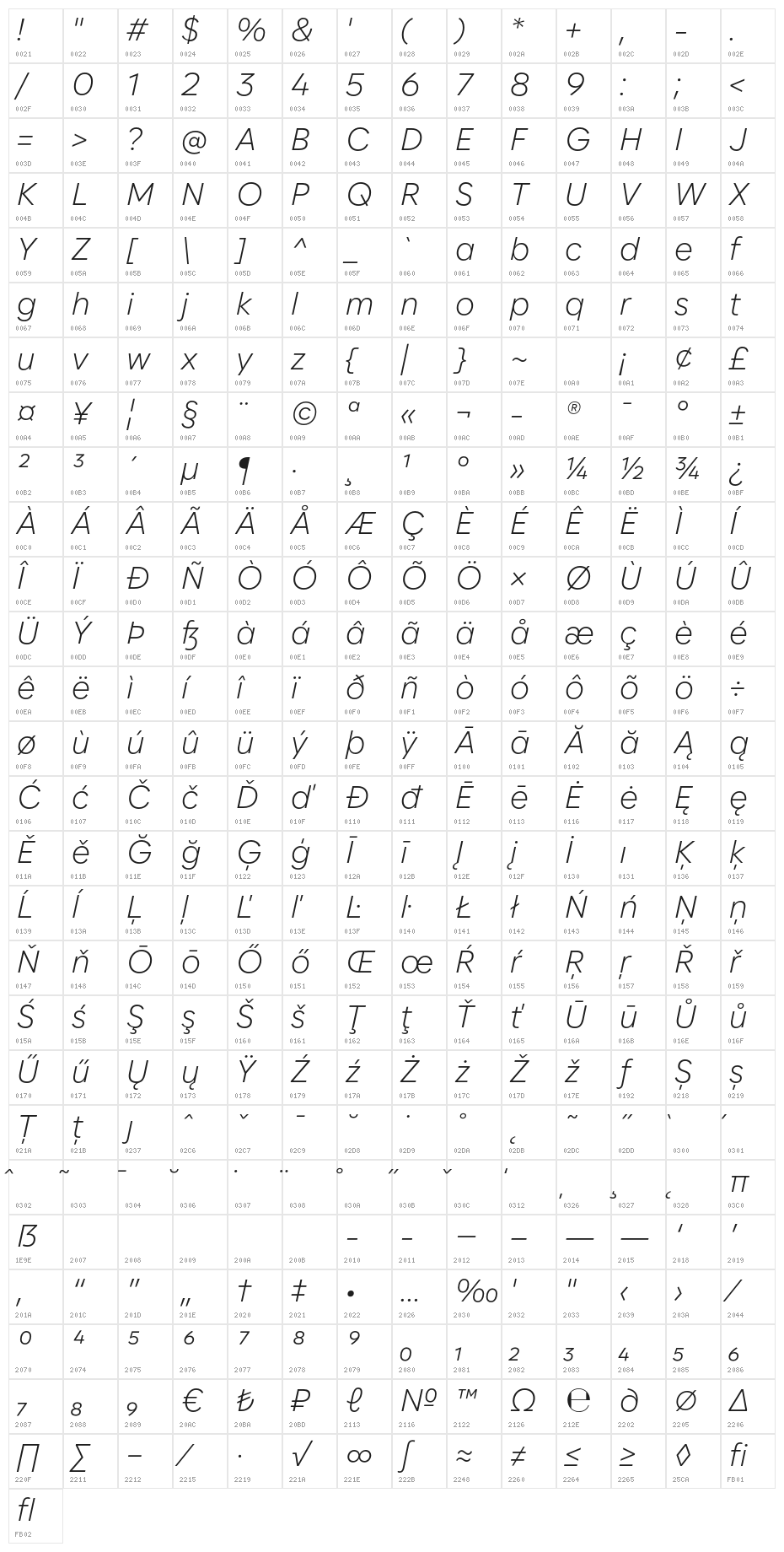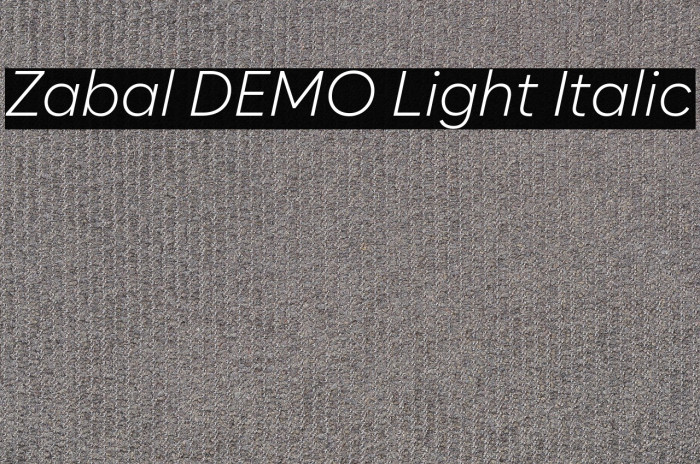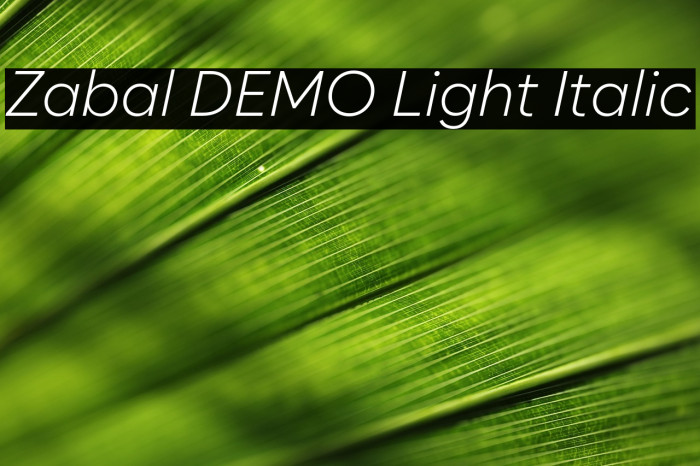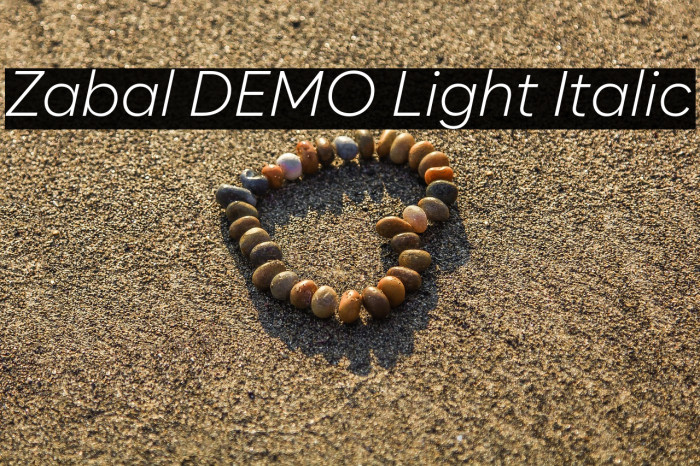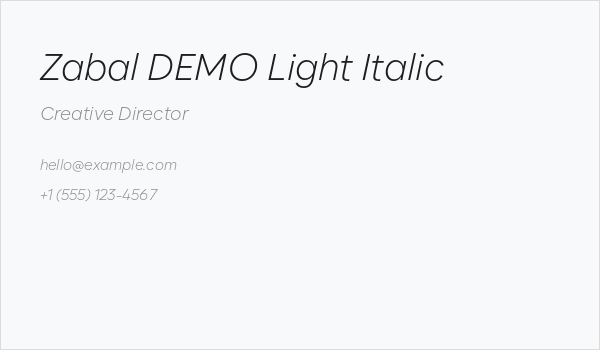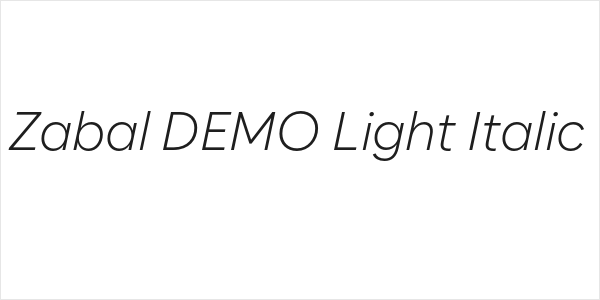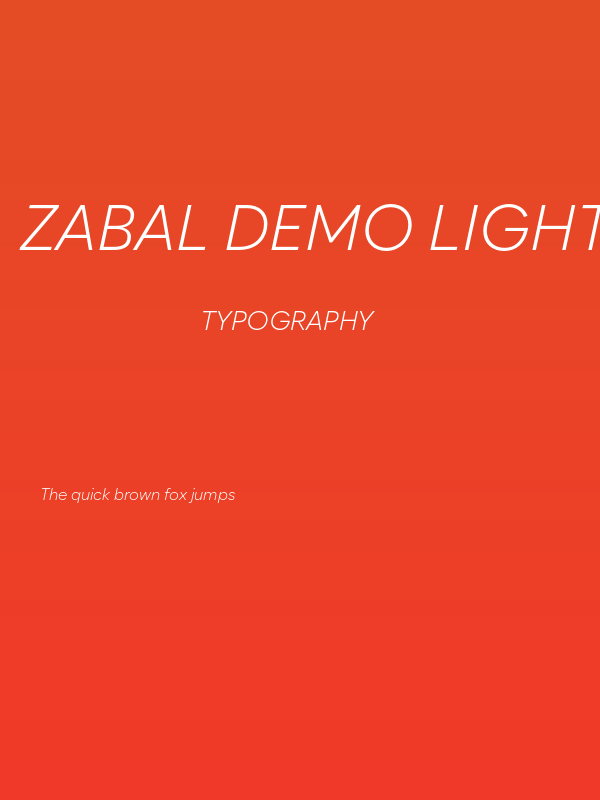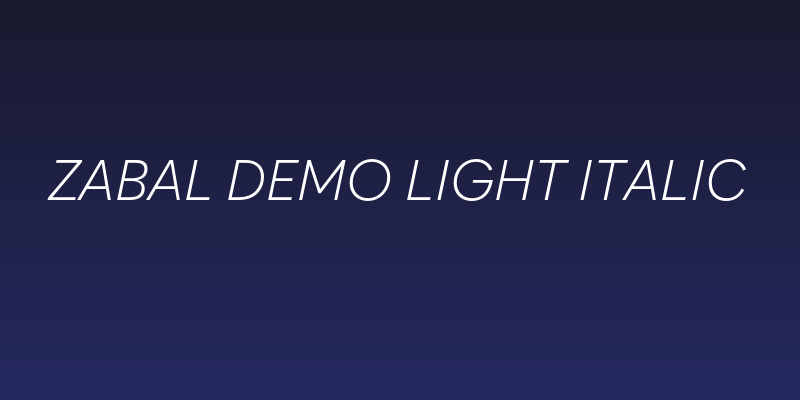
Zabal DEMO Light Italic Font
Zabal DEMO Light Italic Description
This font exhibits a sleek and modern design with a light and airy feel. The italic style adds a dynamic and elegant touch, making it suitable for contemporary projects. The characters are well-proportioned with a consistent stroke width, contributing to its readability and aesthetic appeal. The font's clean lines and subtle curves provide a sense of sophistication and professionalism, making it versatile for various design applications.
| Proposed Projects | Ideal for branding, editorial design, fashion magazines, and websites seeking a modern and sophisticated look. |